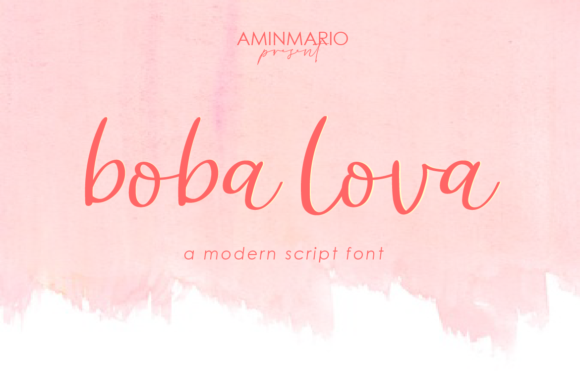
The Boba Lova Font: A Charming and Elegant Addition to Your Design Projects
I’ll never forget the time I was working on a wedding invitation project, and my client asked for a font that was both elegant and playful. I scoured the internet, trying out font after font, but nothing seemed quite right. That was until I stumbled upon the Boba Lova font. Its charming and elegant design instantly won me over, and I knew I had found the perfect fit for my project.
An Honest Review of Boba Lova
- ✨ The elegant and refined design, perfect for wedding invitations, thank you cards, and other formal designs
- ✅ The handwritten touch, which adds a personal and unique feel to any design
- 🎉 The versatility of the font, which can be used for a wide range of design projects, from logos and business cards to quotes and greeting cards
While Boba Lova is an amazing font, there are a few things to keep in mind. For example, ⚠️ some of the more intricate details may not display as clearly at smaller font sizes. Additionally, 🤔 the font may not be suitable for very long blocks of text, as it can be a bit ornate.
The Story Behind Boba Lova
Boba Lova was designed with the intention of creating a font that was both elegant and playful. The designer, inspired by the beauty of handwritten script, set out to create a font that would capture the essence of a personal, handwritten touch. With its refined lines and charming details, Boba Lova is the perfect result of this design goal.
| What type of designs is Boba Lova best suited for? | Boba Lova is perfect for designs that need a touch of elegance and sophistication, such as wedding invitations, thank you cards, logos, and business cards. |
| Is Boba Lova a difficult font to use? | No, Boba Lova is a relatively easy font to use, especially if you’re familiar with script fonts. With a little practice, you’ll be creating beautiful designs in no time! |
| Can I use Boba Lova with OpenType features? | Yes, Boba Lova supports OpenType features, such as glyphs and stylistic alternates, which can add more variety and interest to your designs. |